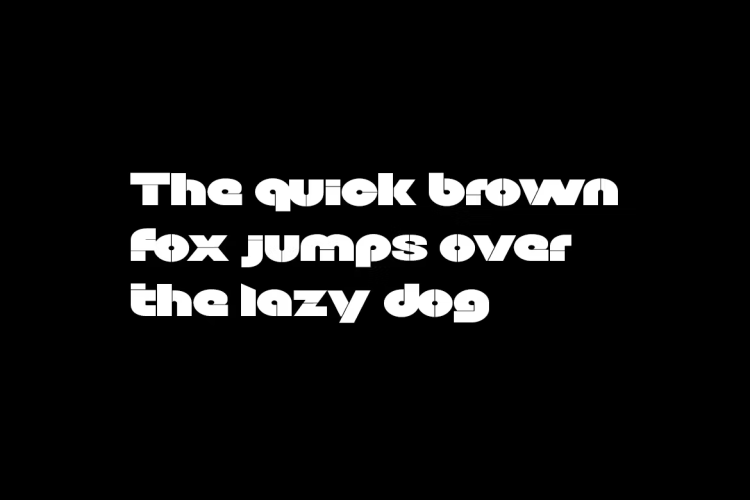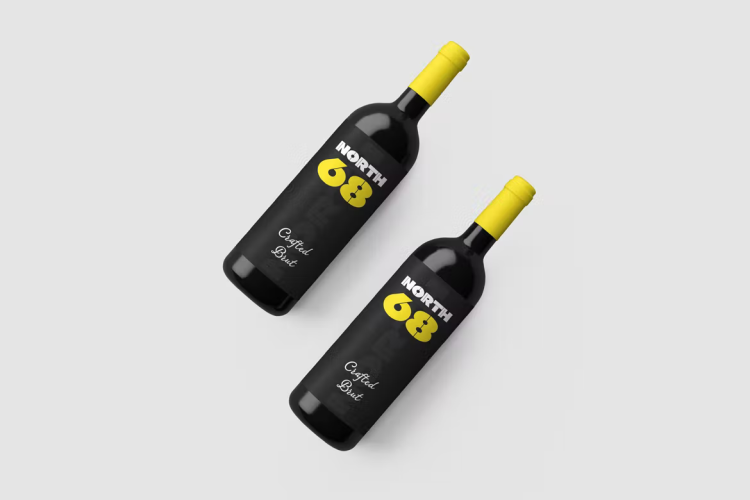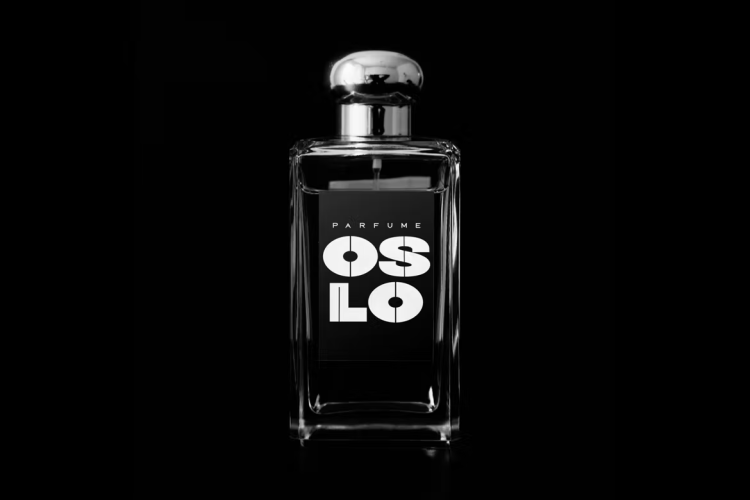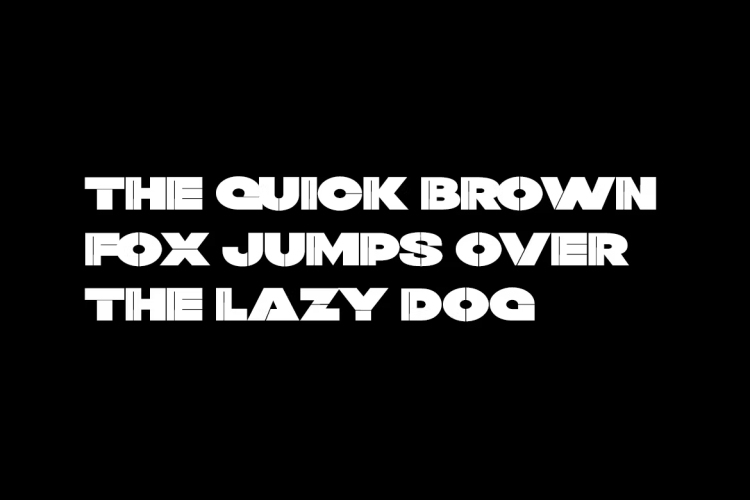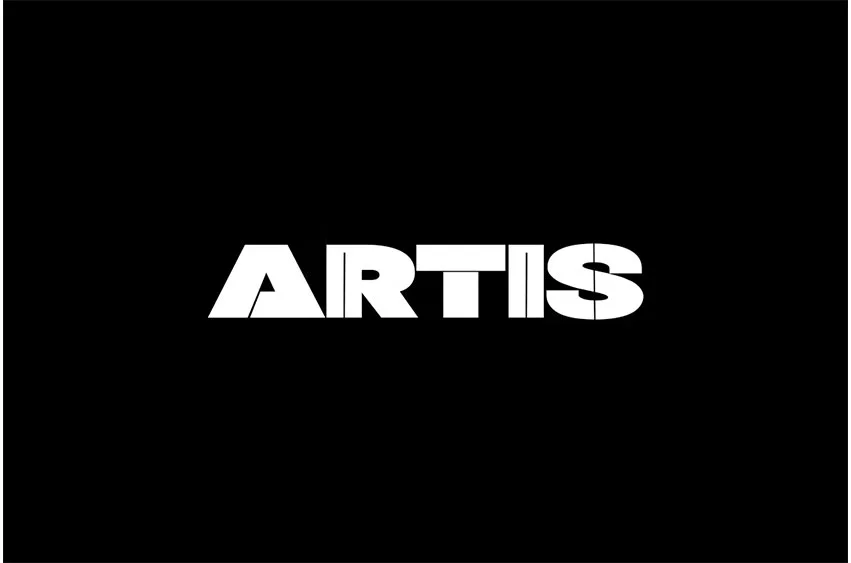
ARTIS Font
ARTIS Font is a unique display typeface made with a touch of its own. This typeface is perfect for headlines, big text, branding, logotypes & display usage. Also suitable for creating outstanding logos, promotional content, and marketing graphics that can really grab attention from your visitors. Please see the examples shown above to get an idea about the capability of this typeface.
Where ARTIS Font works best
Websites & landing pages
ARTIS Font is optimized for screen reading, which makes it a solid body or heading font for blogs, e-commerce and SaaS sites.
Email & newsletters
Clear web-style letterforms improve readability in marketing emails.
Dashboards & documentation
Great for developer docs, admin panels and data-heavy interfaces.
What is ARTIS Font good for?
ARTIS Font is a Web Fonts typeface tagged Branding, Display, Headlines, Typeface. It works well for headlines, logos, posters, social media graphics and branding projects that need a distinctive web fonts look.